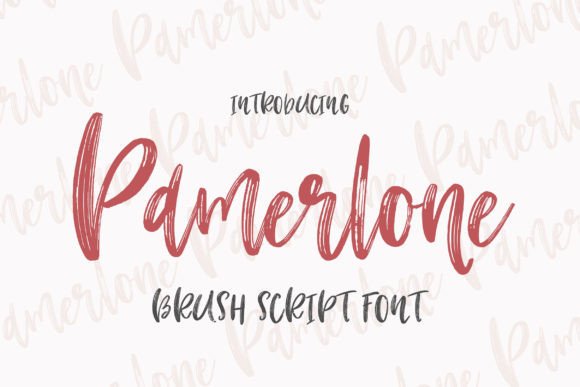
Looking for a font that will elevate your designs and make them stand out? Look no further than Pamerlone Font! Created by the talented designers at Bellinghamtype, this script font is the perfect choice for anyone looking to add a touch of luxury and sophistication to their projects.
With its flowing, graceful lines and intricate, hand-drawn flourishes, Pamerlone Font is sure to captivate and inspire. Whether you're creating wedding invitations, upscale branding, or any other type of refined design, this font is the perfect choice.
But Pamerlone Font isn't just beautiful - it's also incredibly versatile. With its bold, eye-catching style, it's sure to grab the attention of anyone who sees it. And with its wide range of weights and styles, you'll have plenty of options to choose from when designing your next project.